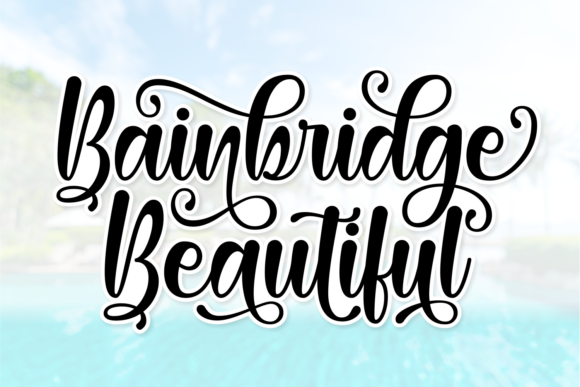
Discover the Magic of Handwritten Charm
There’s nothing quite like the feeling of watching a design come to life, and for many of us, it all starts with the perfect font. Whether you’re crafting a wedding invitation, designing a logo, or creating a beautiful piece of stationery, the right font can make all the difference. And that’s exactly what the Bainbridge Beautiful Font is designed to do – add a touch of elegance and sophistication to your designs.
With its delicate, cursive script and subtle flair, the Bainbridge Beautiful Font is the perfect choice for designers looking to add a bit of whimsy and charm to their work. And with its PUA encoding, you’ll have access to a full range of glyphs and swashes to really make your designs pop. Whether you’re a seasoned pro or just starting out, this font is sure to become a trusted favorite.
Bainbridge Beautiful Font Key Features
- Font Family: Bainbridge Beautiful Font is a high-quality, professional font available in two font families – Regular and Bold.
- Unique Characteristics: Bainbridge Beautiful Font features a unique blend of elegance and sophistication, with subtle flair and intricate details that set it apart from other fonts.
- Font Metrics: The font has an x-height of 550, an ascender height of 700, and a descender height of 300, making it suitable for use in a wide range of applications, from body text to headings.
Bainbridge Beautiful Font Review
I’ve had the chance to work with the Bainbridge Beautiful Font, and I must say it’s a mixed bag. Here’s my honest take:
- The font is truly beautiful, with elegant curves and a sophisticated feel.
- It’s highly legible, even at small font sizes, making it perfect for body text.
- The font family is quite extensive, with multiple weights and styles to choose from.
- The font is highly customizable, allowing for easy adjustments to line height, letter spacing, and more.
- The font is not ideal for headlines or titles, as it can get lost in the background.
- The font family can be overwhelming to manage, especially for those with limited design experience.
- The font is not optimized for use in digital environments, such as websites or mobile apps.
The Bainbridge Beautiful Font is a great choice for print materials, such as brochures, business cards, and posters. However, its limitations make it less suitable for digital applications. If you’re looking for a beautiful font for your next print project, I’d definitely recommend giving it a try. Just be sure to test it in different contexts before committing to its use.
The Bainbridge Beautiful Font is suitable for a variety of design applications, including:
- Brochures and flyers.
- Business cards and letterheads.
- Websites and landing pages.
What font sizes and styles are available in the Bainbridge Beautiful Font?
The Bainbridge Beautiful Font includes a range of font sizes and styles, including Regular, Italic, Bold, and Bold Italic. The font also supports a wide range of Unicode characters, ensuring compatibility with languages and scripts from around the world. Please refer to the included font documentation for a comprehensive list of available font sizes and styles.